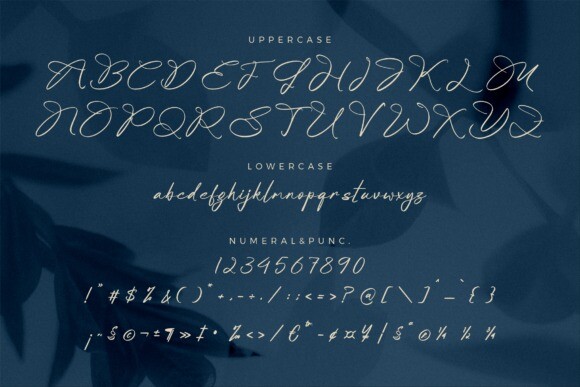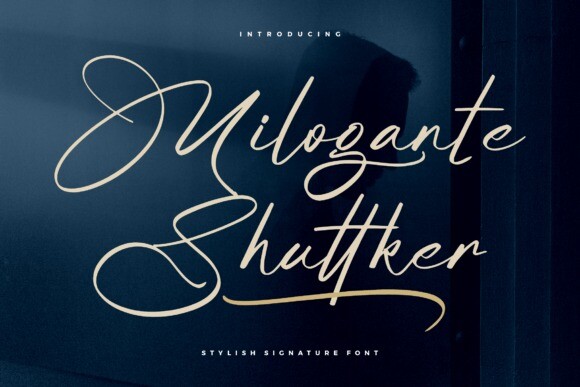
Milogante Shuttker Font
Milogante Shuttker Font – Stylish Signature Font , from Glorytype Studio, suitable for any projects such as: logos, branding projects, homeware designs, product packaging, mugs, quotes, posters, shopping bags, t-shirts, book covers, name card, invitation cards, greeting cards, label, photography, watermark, special events, and all your other lovely projects that need a beautiful script taste.